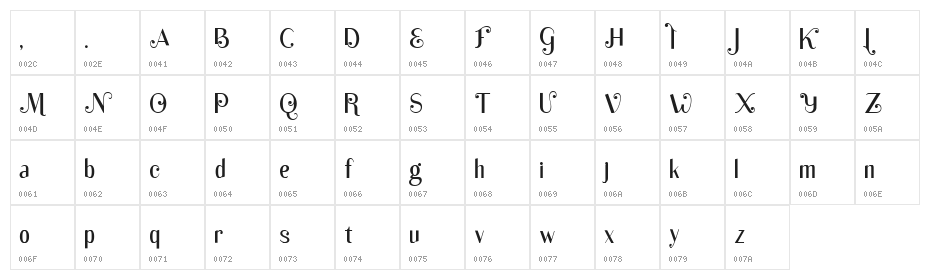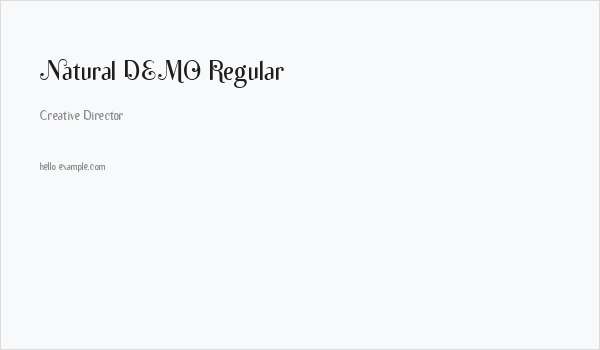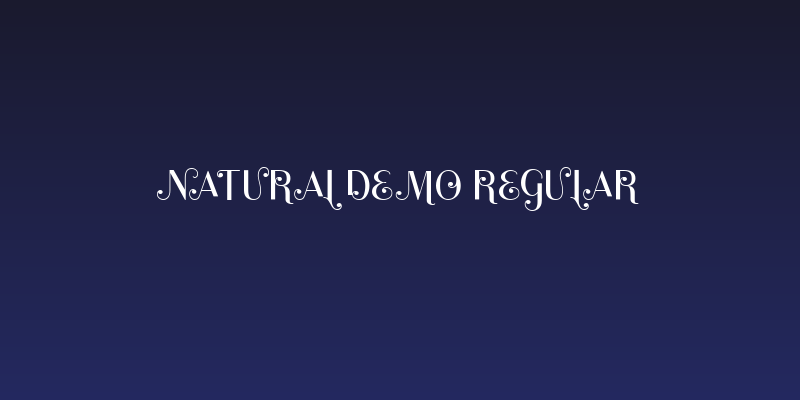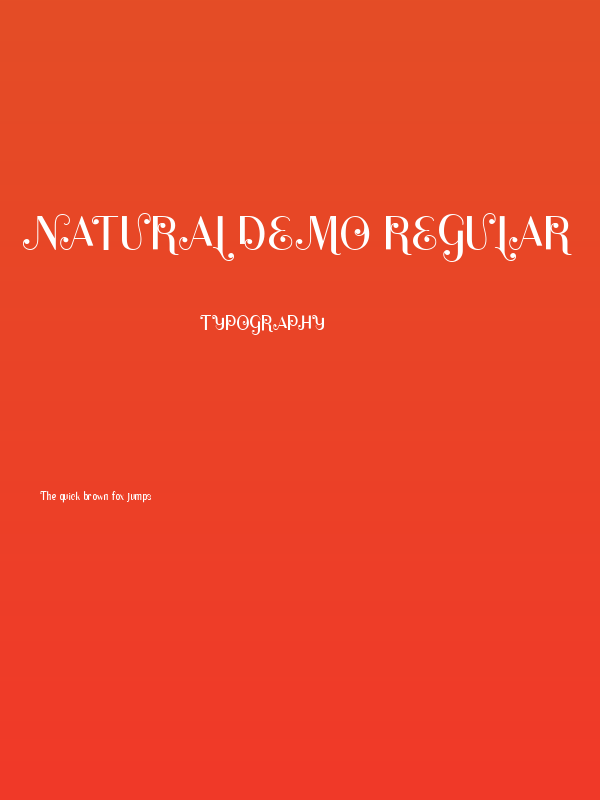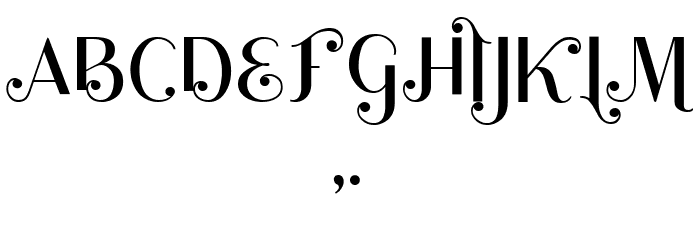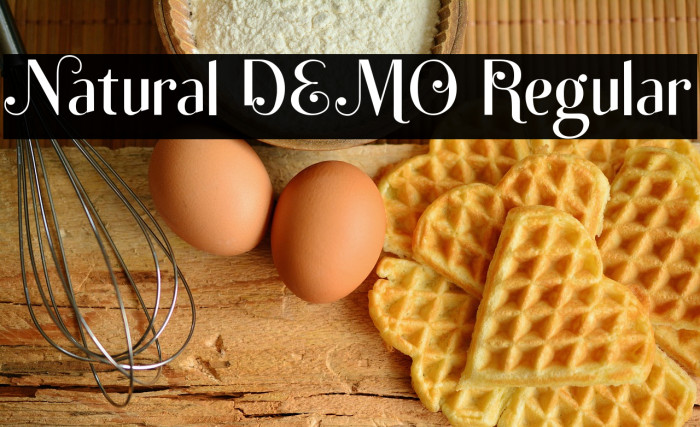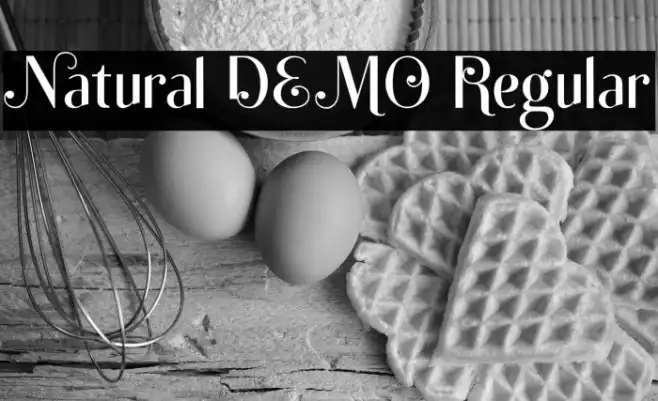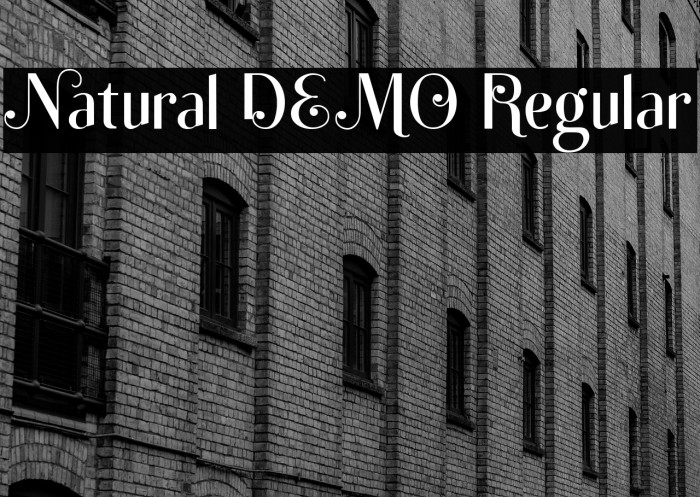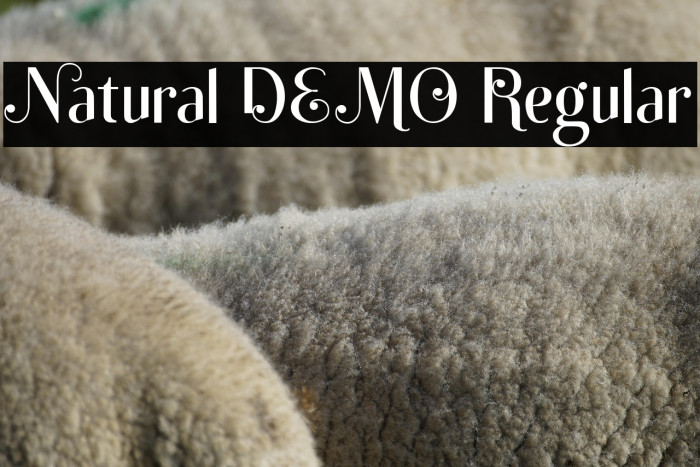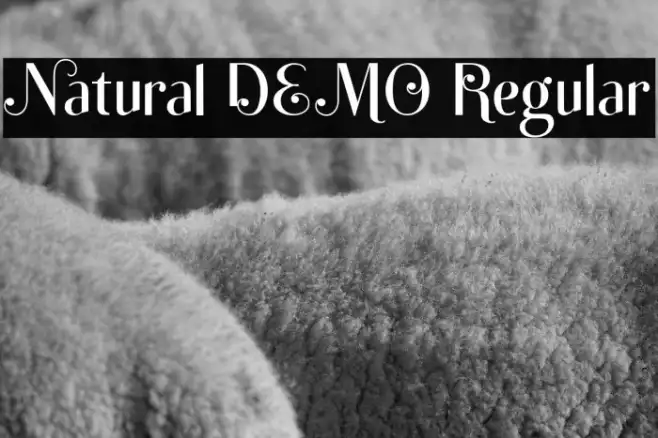
Natural DEMO Regular Font
Natural DEMO Regular Description
This font features a decorative and elegant style with a unique blend of classic and modern elements. The uppercase letters are adorned with intricate swirls and curls, adding a touch of sophistication and flair. The lowercase letters maintain a more straightforward design, providing a balanced contrast to the ornate capitals. The font's overall appearance is both artistic and refined, making it suitable for creative and formal applications. Its distinct character shapes and embellishments make it stand out, offering a visually appealing option for various design projects.
| Proposed Projects | Ideal for wedding invitations, luxury branding, artistic posters, and elegant packaging designs. |